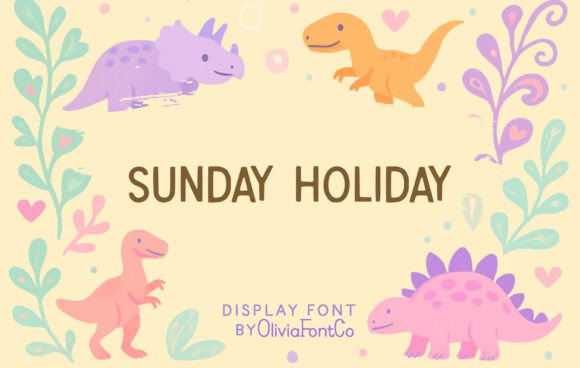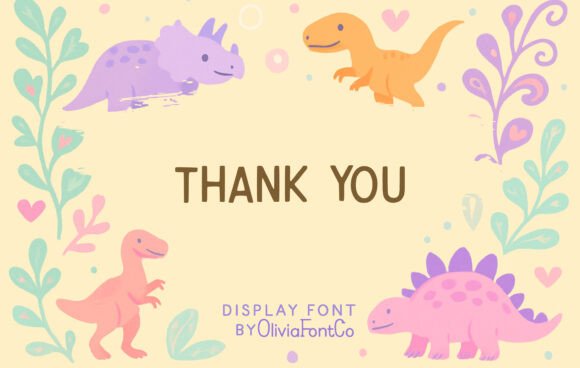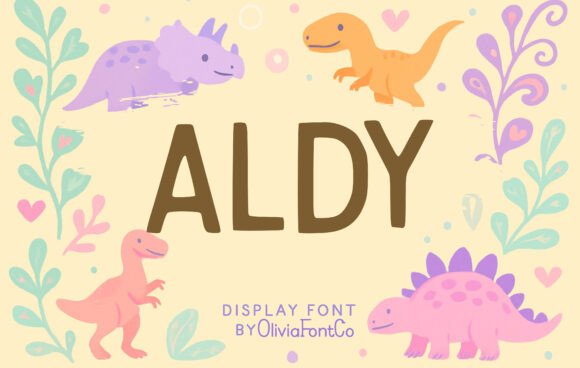
Aldy Font: Elevate Your Creative Projects with Style and Legibility
In the world of design, fonts play a crucial role in bringing creative ideas to life. Among the numerous fonts available, Aldy Font stands out as a versatile and stylish choice for designers and crafters alike. This font is designed to be a true favorite, capable of taking your creative projects to the highest level with its exceptional legibility and aesthetic appeal.
Key Features of Aldy Font
Aldy Font boasts several key features that make it an ideal choice for a wide range of design projects:
• Legibility: One of the standout qualities of Aldy Font is its exceptional legibility. Whether you’re using it for title text or body text, this font ensures that your message is conveyed clearly and effectively.
• Versatility: Aldy Font is incredibly versatile, making it suitable for various design projects. From magazine headlines and t-shirt designs to social media graphics, branding, wedding invitations, and cards, this font can elevate any creative endeavor.
• Aesthetic Appeal: With its unique style, Aldy Font adds a touch of sophistication and elegance to any design. Its visually appealing curves and lines make it a great choice for designers looking to create stunning visuals.
Aldy Font’s versatility makes it an excellent choice for a multitude of design projects. Here are some of the ways you can utilize this fantastic font:
• Magazine Headlines: Create eye-catching headlines that grab readers’ attention with Aldy Font. Its stylish and legible design ensures that your magazine stands out on the newsstand.
• T-Shirt Designs: Add a professional touch to your t-shirt designs with Aldy Font. Its unique style and legibility make it perfect for creating visually appealing and effective designs.
• Social Media Graphics: Elevate your social media presence with stunning graphics created using Aldy Font. Whether you’re designing posts, stories, or ads, this font ensures that your content looks great and engages your audience.
• Branding: Establish a strong brand identity with Aldy Font. Use it for your logo, website, or marketing materials to create a cohesive and professional look.
• Wedding Invitations and Cards: Add a touch of elegance to your wedding invitations, cards, and other stationery with Aldy Font. Its sophisticated design makes it perfect for creating beautiful and memorable stationery.
Why Choose Aldy Font?
With so many fonts available, why choose Aldy Font for your design projects? Here are a few compelling reasons:
• Unique Style: Aldy Font offers a unique style that sets it apart from other fonts. Its distinctive curves and lines make it a great choice for designers looking to create visually stunning designs.
• Exceptional Legibility: This font is designed to be highly legible, ensuring that your message is conveyed effectively to your audience.
• Versatility: Aldy Font’s versatility makes it suitable for a wide range of design projects, from print materials to digital graphics.
Aldy Font is an exceptional choice for designers and crafters looking to elevate their creative projects with style and legibility. Its unique style, versatility, and exceptional legibility make it perfect for various design projects, from magazine headlines and t-shirt designs to social media graphics, branding, and wedding invitations. With Aldy Font, you can take your creative ideas to the highest level and create stunning visuals that engage and inspire your audience.